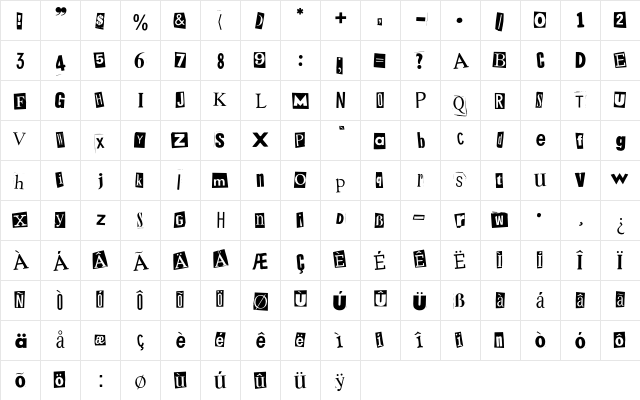
MysteryEF Mixed
Design Context for MysteryEF Typeface
MysteryEF is a composed and adaptable typeface that performs quietly and consistently across a wide range of design contexts.